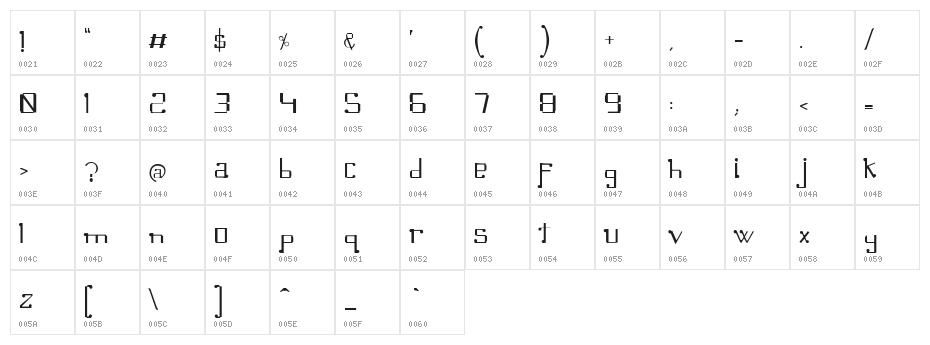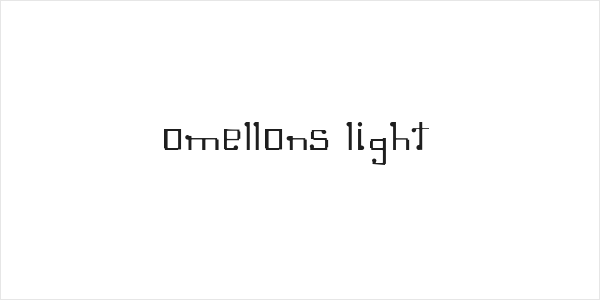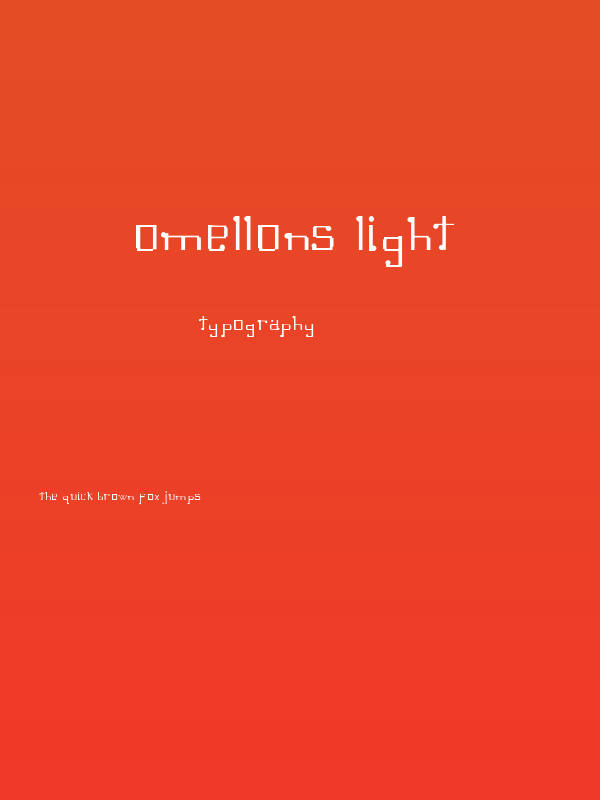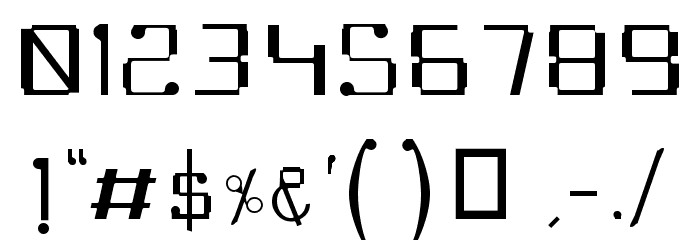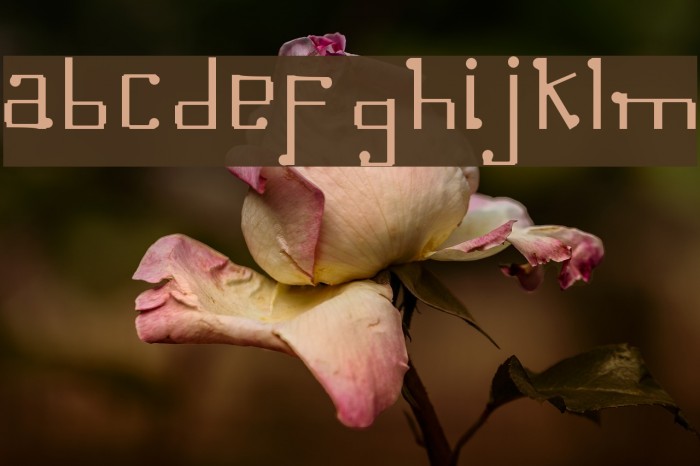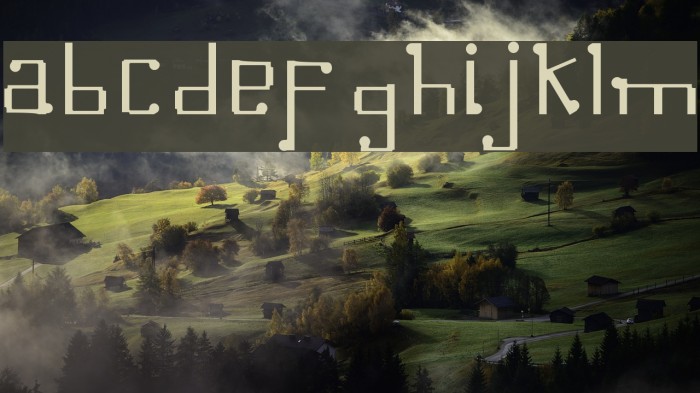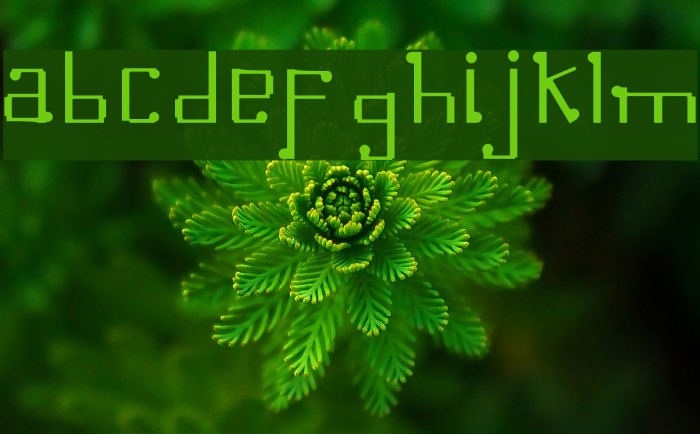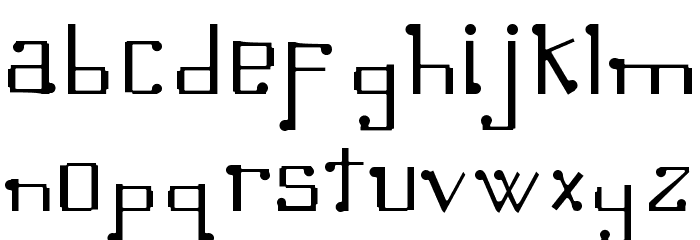
Omellons Light Font
Omellons Light Description
This font features a unique and modern design with a geometric and slightly futuristic appearance. The characters are constructed with a combination of straight lines and rounded corners, giving them a distinctive look. The uppercase and lowercase letters maintain a consistent style, with the uppercase letters being slightly taller. The numerals are bold and clear, making them easily readable. Special characters are designed to match the overall aesthetic, with a playful yet structured form. This font is ideal for creative projects that require a modern and innovative touch.
| Use Case | Logos, Headlines, Digital Media |
| Proposed Projects | Ideal for tech-related branding, modern posters, innovative product packaging, and creative digital media. |